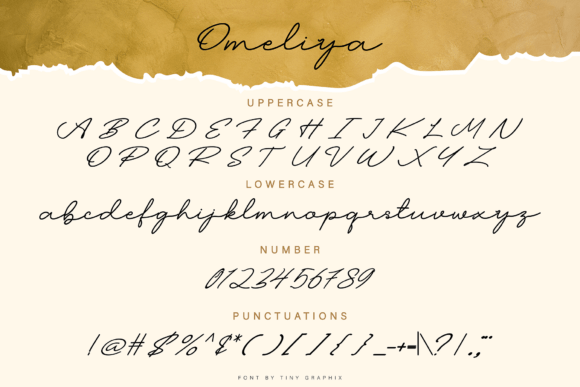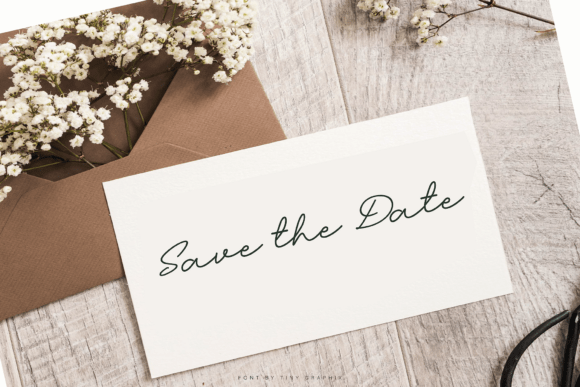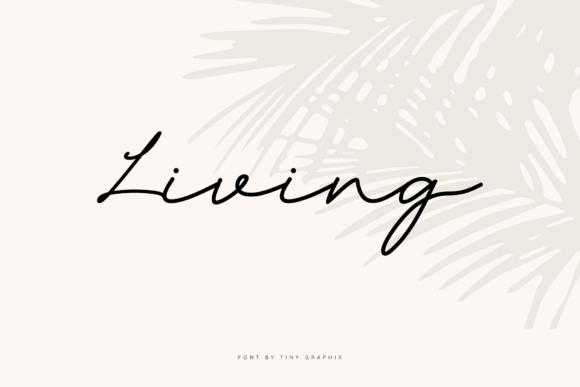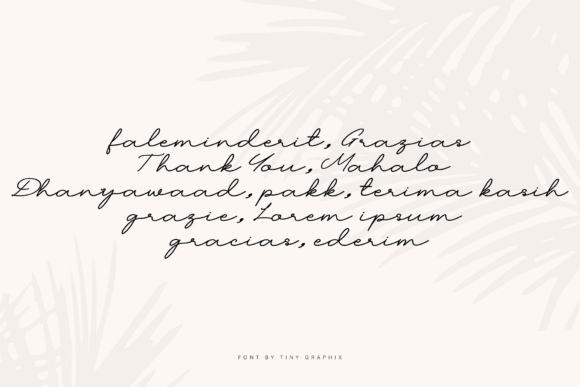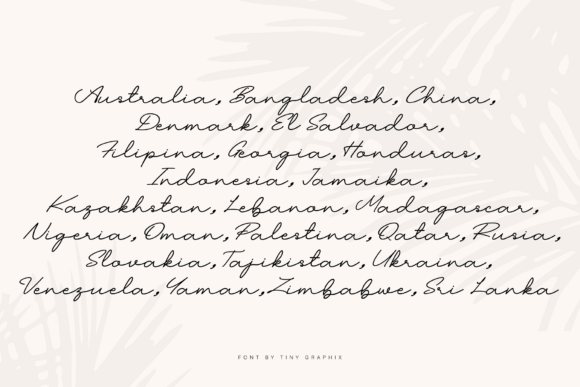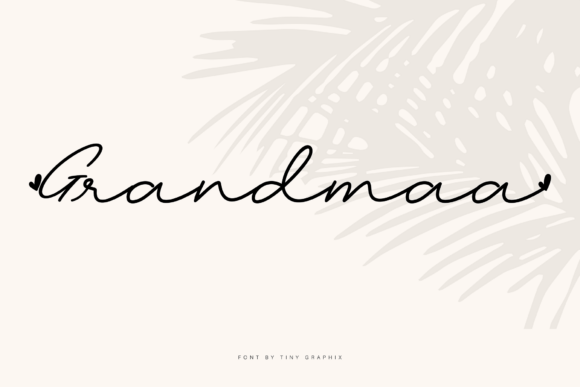
Introduction to Omelia Font
Omelia is a modern handwritten font that brings a touch of elegance and warmth to every design.
With its smooth curves and stylish strokes, this script font is perfect for creating stunning wedding invitations, branding projects, social media posts, greeting cards, logos, and more Whether youโre designing for love letters, teacher appreciation cards, birthdays, or business branding, Omelia adds a personal and sophisticated handwritten charm.
Key Features of Omelia Font